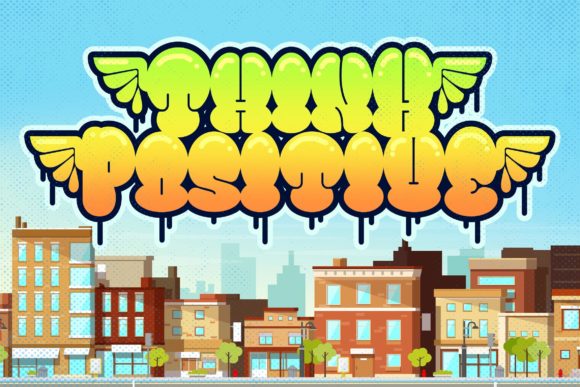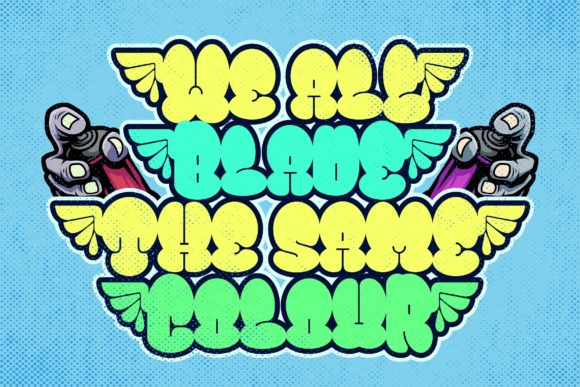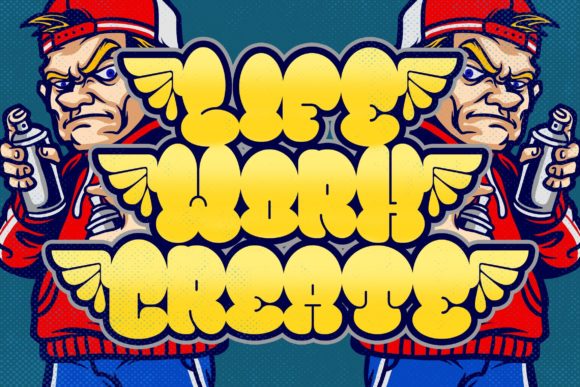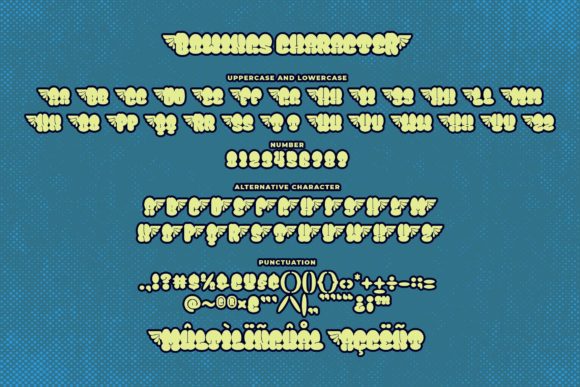
Introduction to Bowings Font
Bowings is a cute, bubbly and fun display font.
It embodies playfulness and authenticity and is the perfect choice for any children activity or school project .